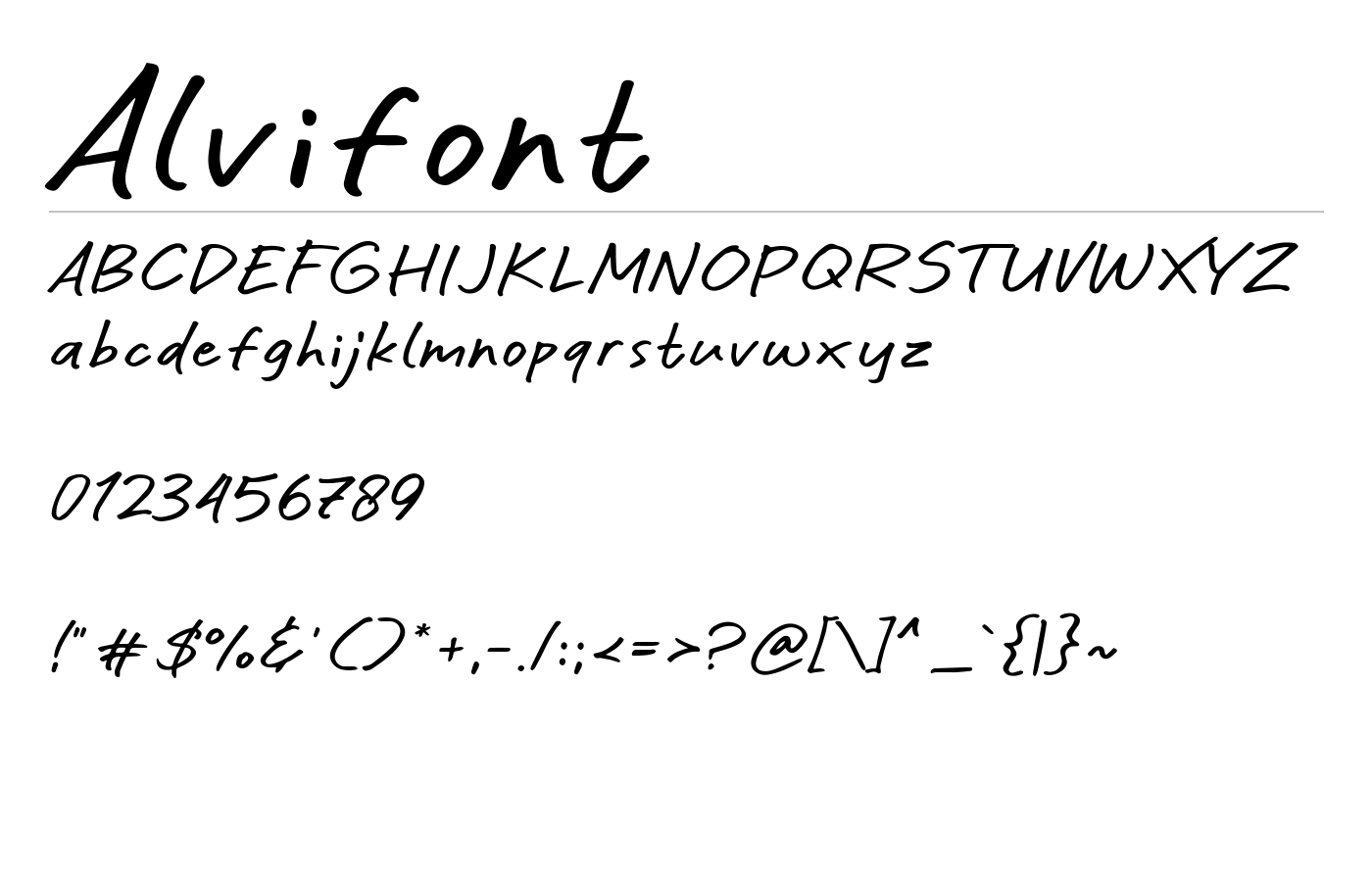
Alvifont is a casual, handwritten-style sans serif font with a light, airy feel and smooth, rounded strokes that mimic natural penmanship. Its slightly slanted, informal letterforms convey a friendly and approachable personality, making it ideal for creative projects, personal branding, and informal communication. This font works well in invitations, greeting cards, and lifestyle branding where a warm, personal touch is desired.
Alvifont
About Alvifont